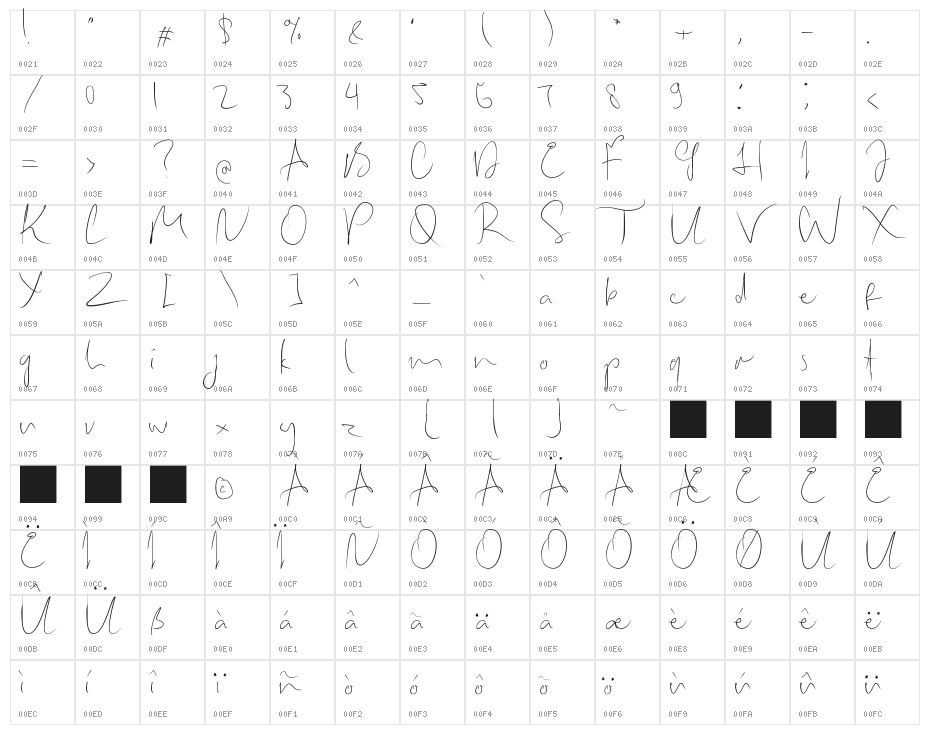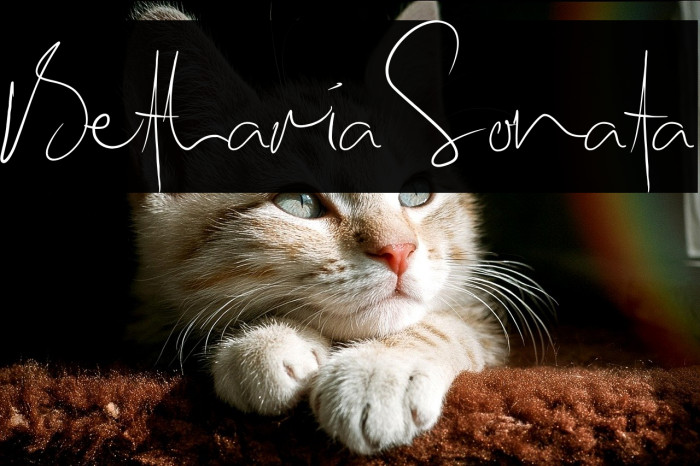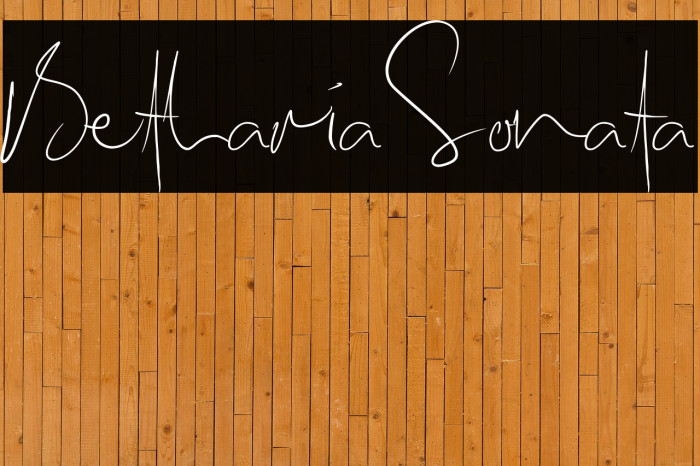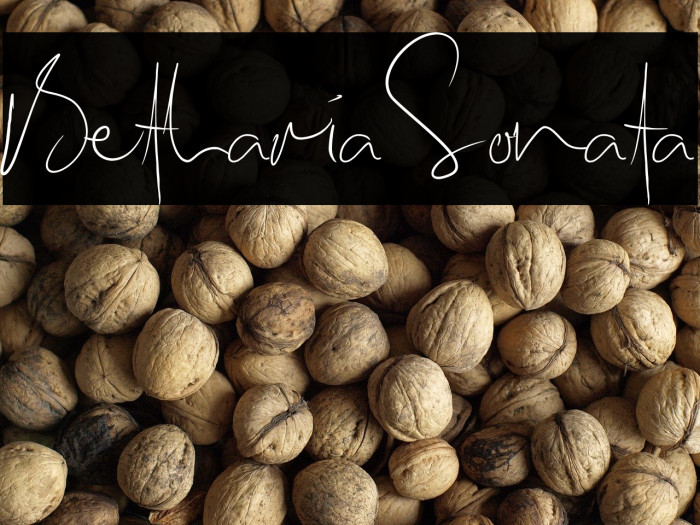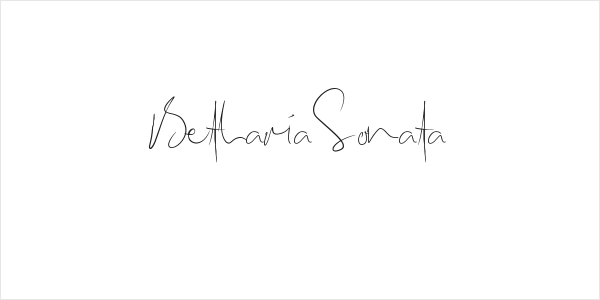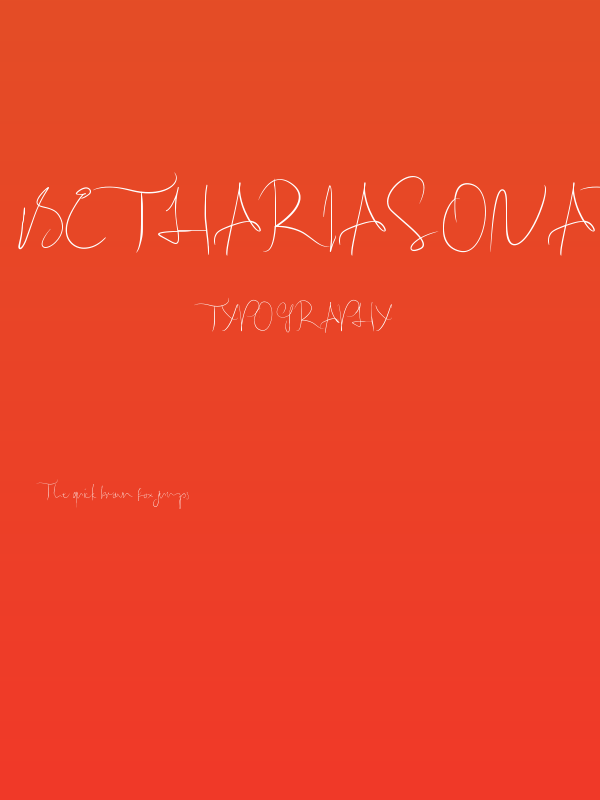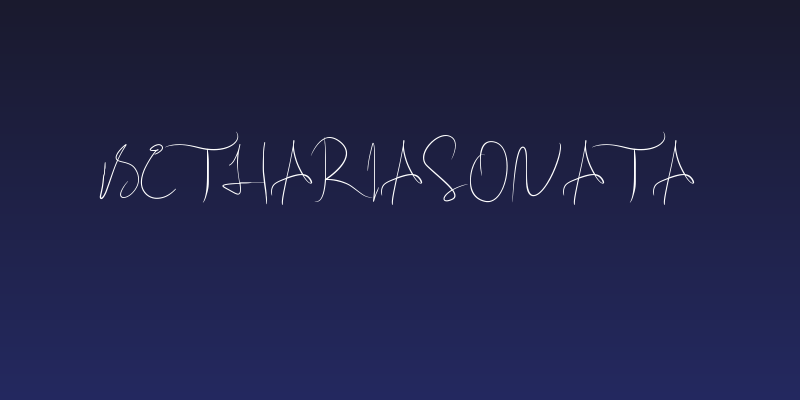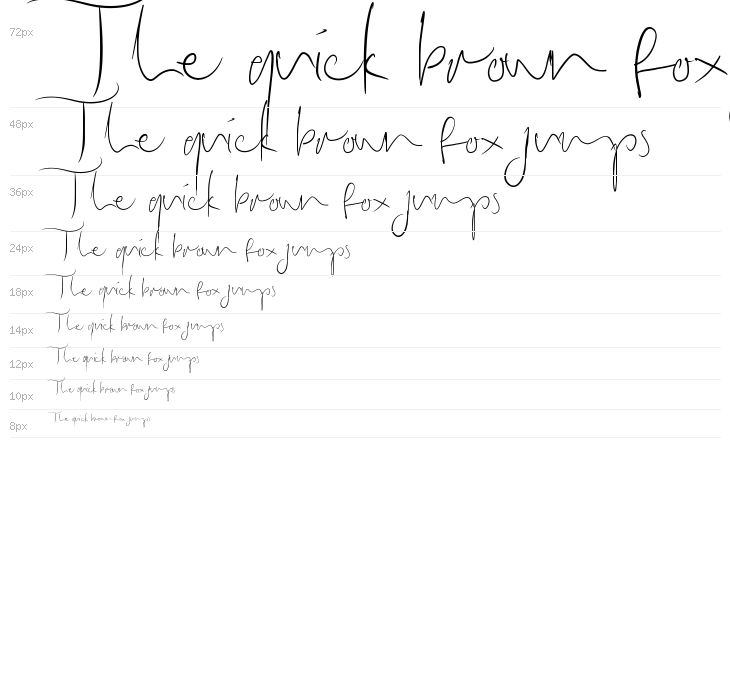
BethariaSonata Font
BethariaSonata Description
This font exudes a casual, handwritten style with a playful and artistic flair. The letters are characterized by their fluid, cursive strokes that mimic the natural flow of handwriting. Each character varies slightly in height and slant, adding to the organic feel. The uppercase letters are tall and elegant, while the lowercase letters maintain a consistent baseline with occasional loops and flourishes. The numbers and special characters follow the same whimsical style, making the font suitable for creative and informal applications. The overall appearance is both approachable and stylish, perfect for projects that require a personal touch.
| Overall Style | Casual, Artistic |
| Proposed Projects | Ideal for greeting cards, invitations, personal branding, and artistic projects. |